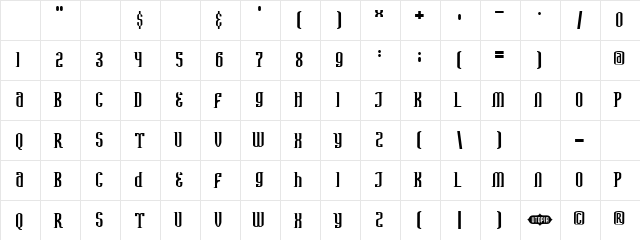
Avatar Serif Regular Font Preview
Avatar Serif Regular
Avatar Serif Regular Font Details
Design Context for Avatar Serif Typeface
Avatar Serif brings classic typographic sensibility to the table — its serifs and measured letterforms reflect centuries of print heritage.